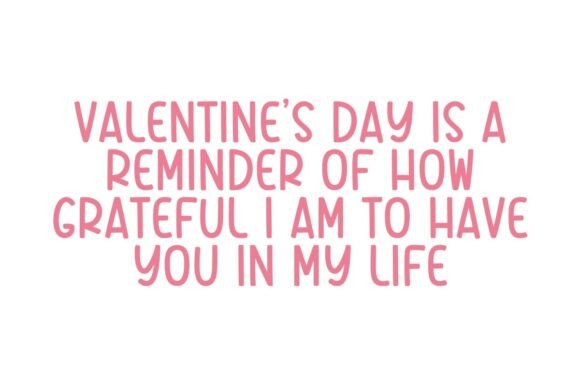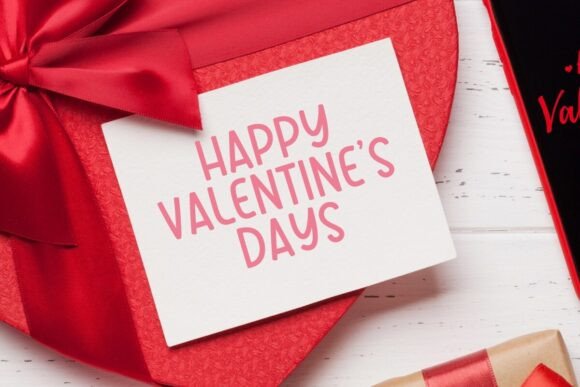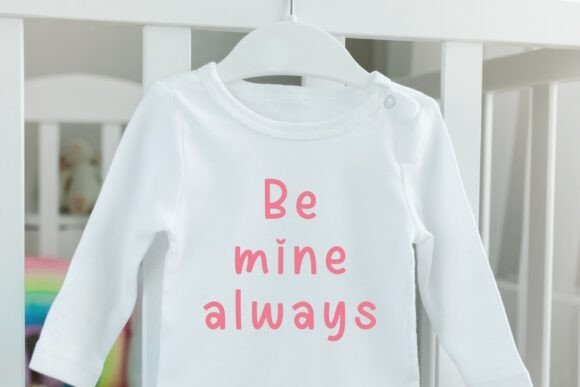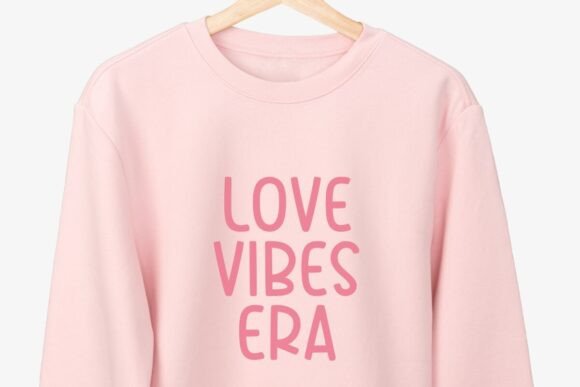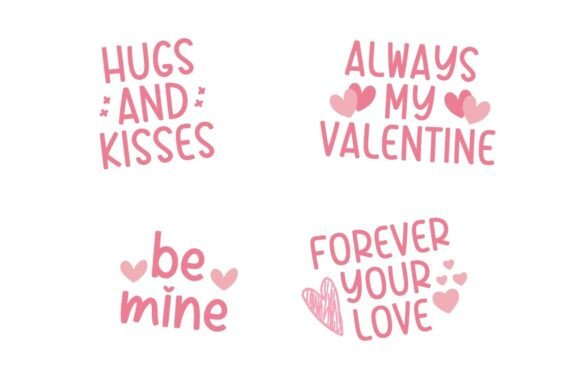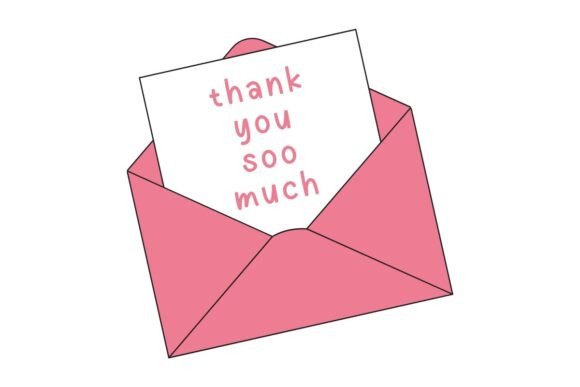
Introduction to Foryou Lover Font
Immerse yourself in the captivating allure of Foryou Lover, an exquisitely authentic handwritten font.
With its romantic whimsy, Foryou Lover flawlessly adds a touch of intimacy and personal warmth to your favorite quotes, transforming them into poignant sentiments Ideal for adorning elements of your everyday life; be it printing on t-shirts, designing greeting cards, customizing tote bags, beautifying tumblers, or adding a welcoming touch to doormats.